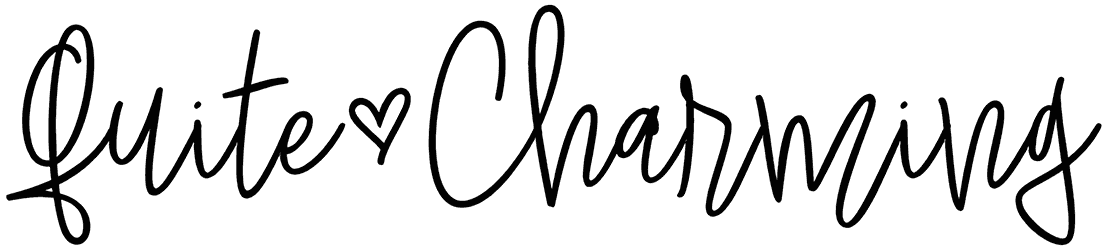
Quite Charming Font
Don’t limit yourself to simple styles and adorn your present project with this casual and cute handwritten font to engage a lot of visitors. Quite Charming font has thin and natural characters, but it doesn’t support numbers, sadly. Many creative ideas from a daily Instagram story or a postcard message to a friend will be delightful with this script font.
The Quite Charming font is a flirty script. Use the asterisk (*) for a heart!